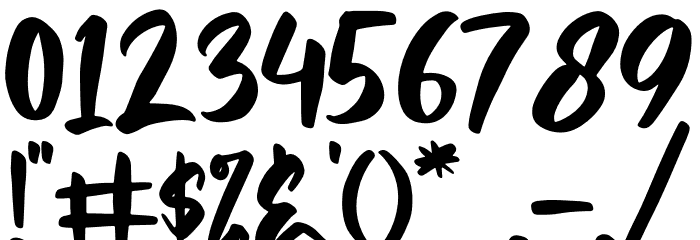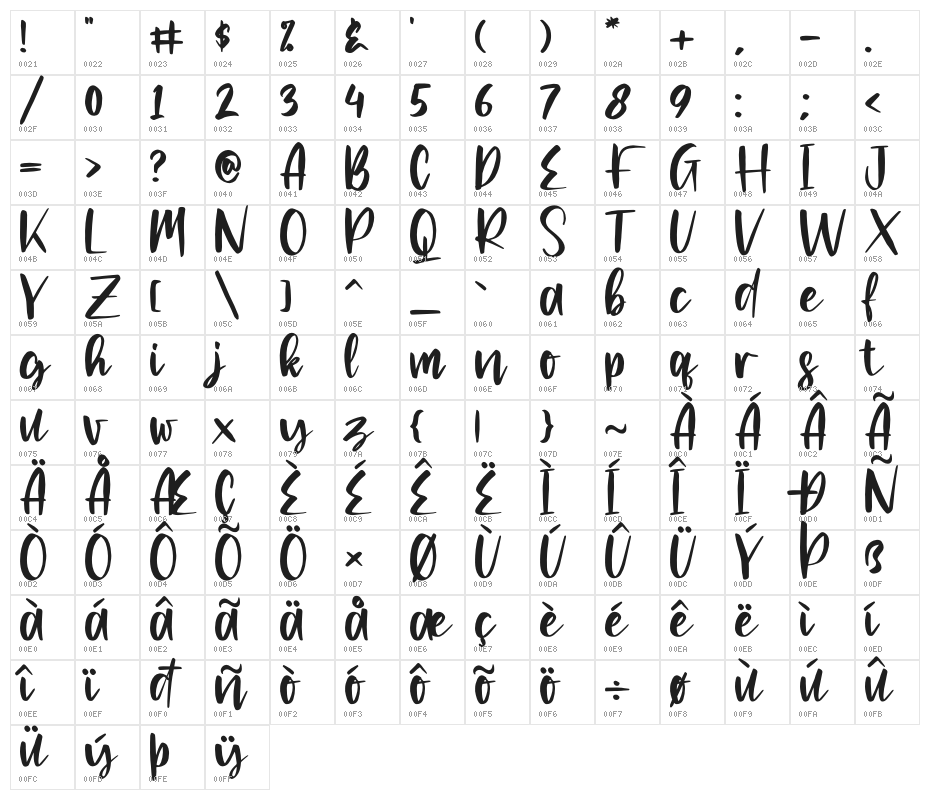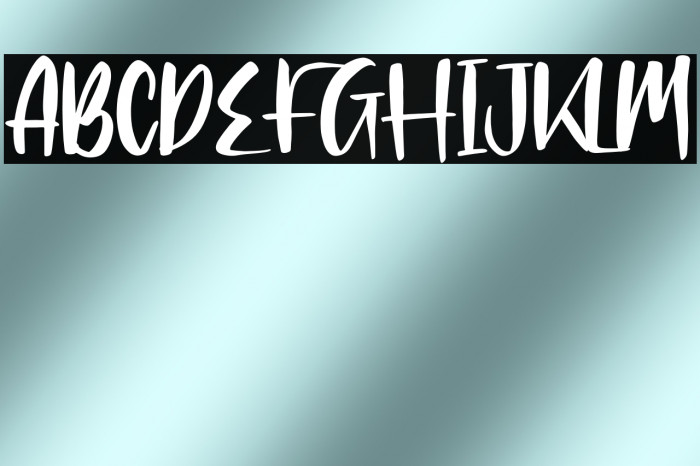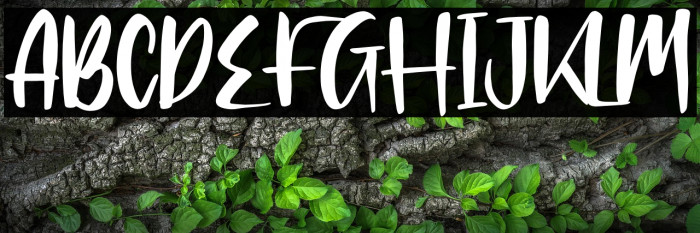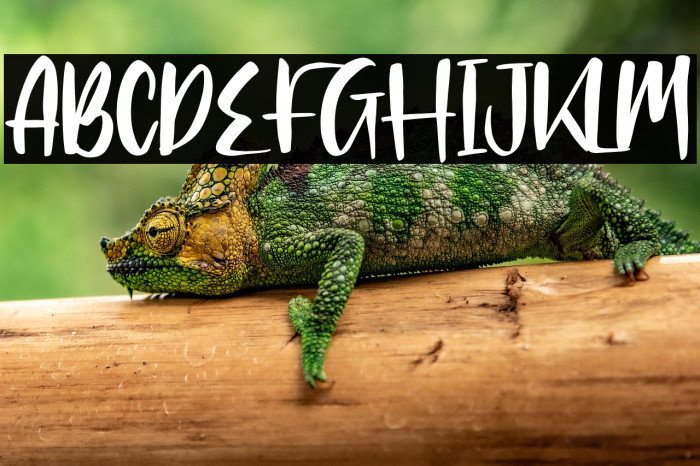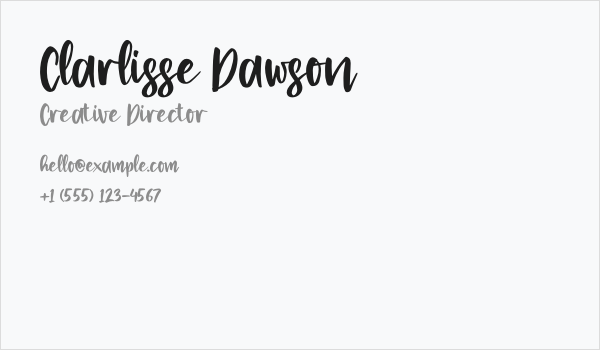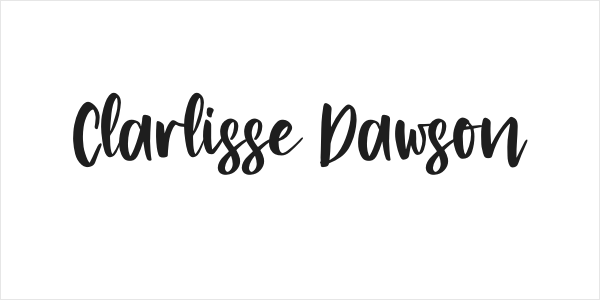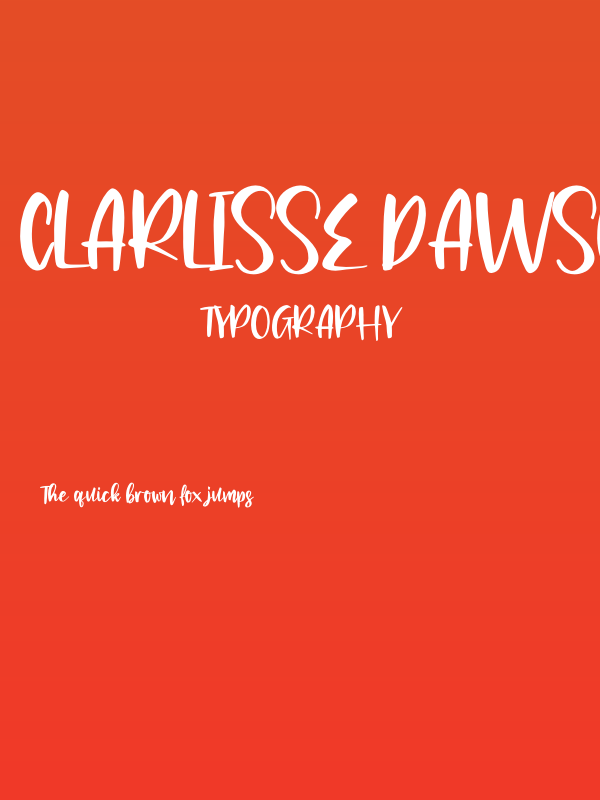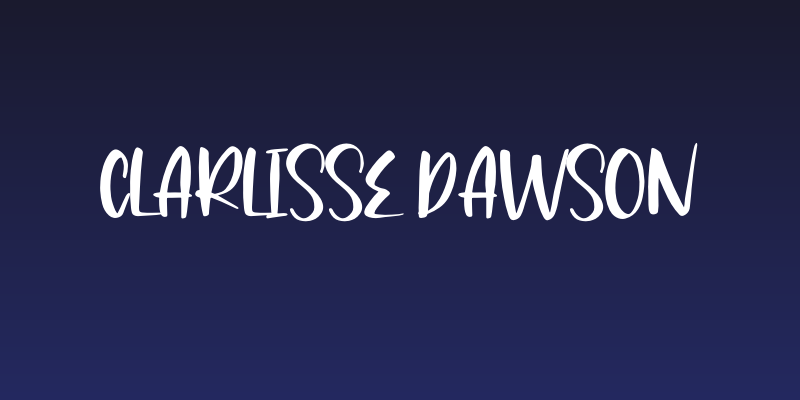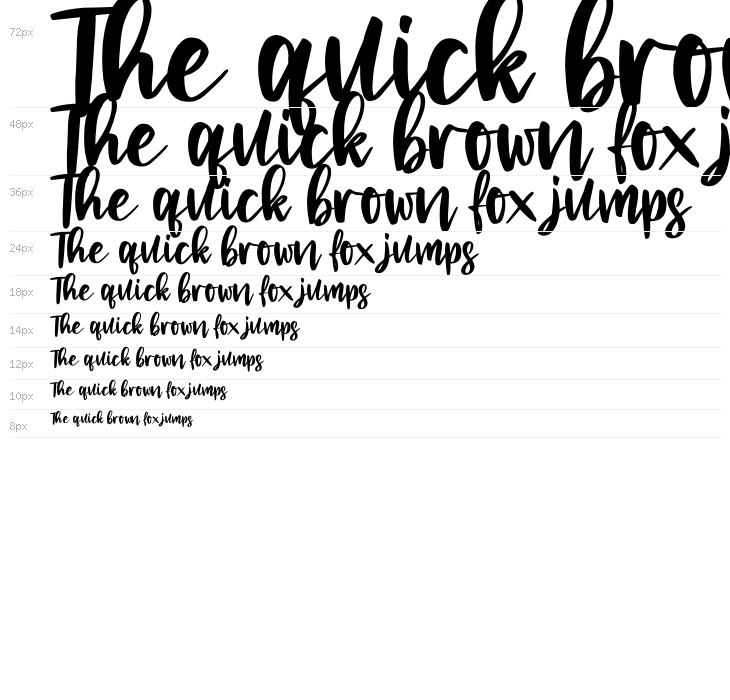
Clarlisse Dawson Font
Clarlisse Dawson Description
This font features a bold, handwritten style with a playful and energetic appearance. The characters are slightly slanted, giving a dynamic and informal feel. The strokes are thick and consistent, providing a strong presence on the page. The uppercase letters are tall and commanding, while the lowercase letters maintain a friendly and approachable look. Numbers and special characters are designed to match the overall style, ensuring cohesion throughout. This font is ideal for projects that require a personal touch or a creative flair.
| Proposed Projects | Perfect for greeting cards, posters, branding materials, and social media graphics. |